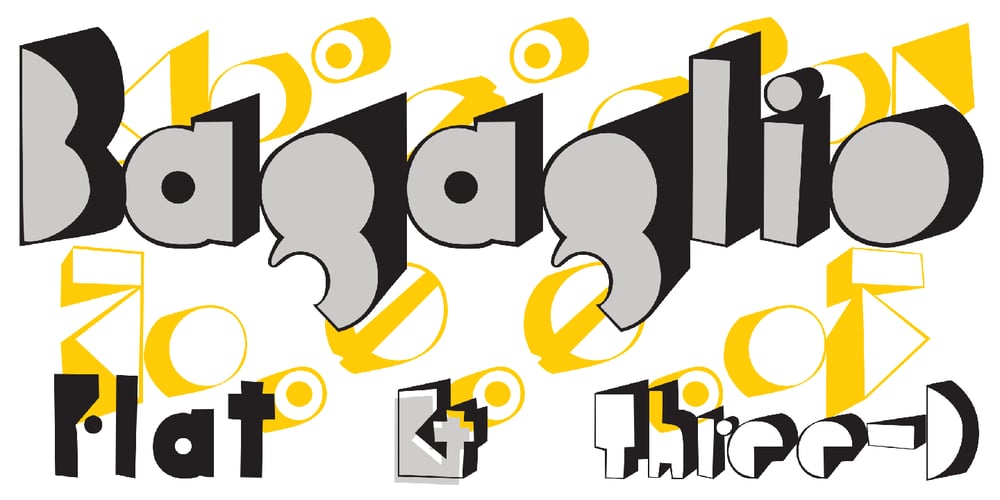
P22 Bagaglio Font Family was designed by Richard Kegler and published by P22 Type Foundry. P22 Bagaglio contains 1 styles and family package options. A mysterious 1930s Italian luggage tag inspired Bagaglio. Given its historical and geographical origin, this rough-hewn font could be considered a cousin to the P22 Il Futurismo font.